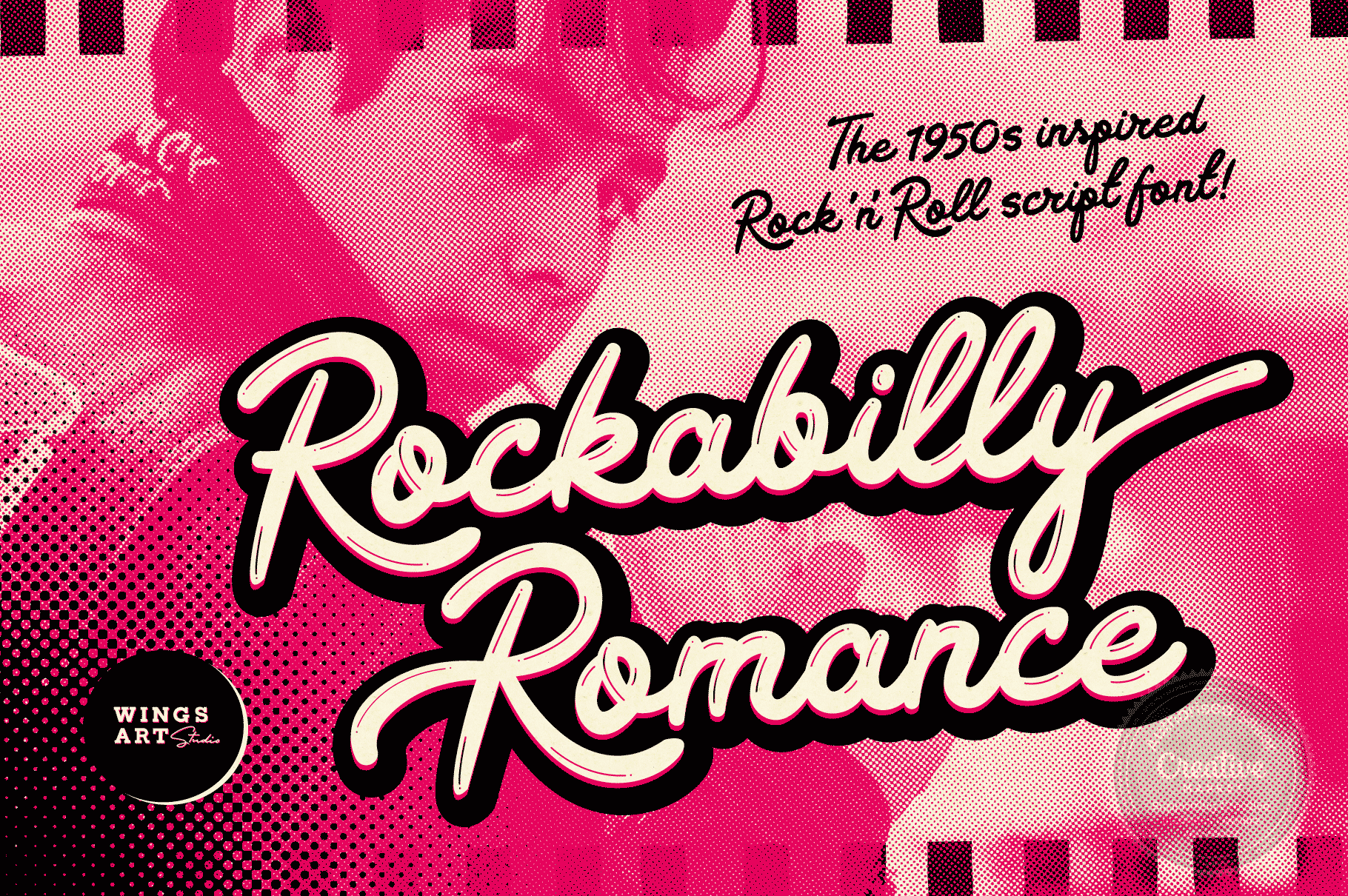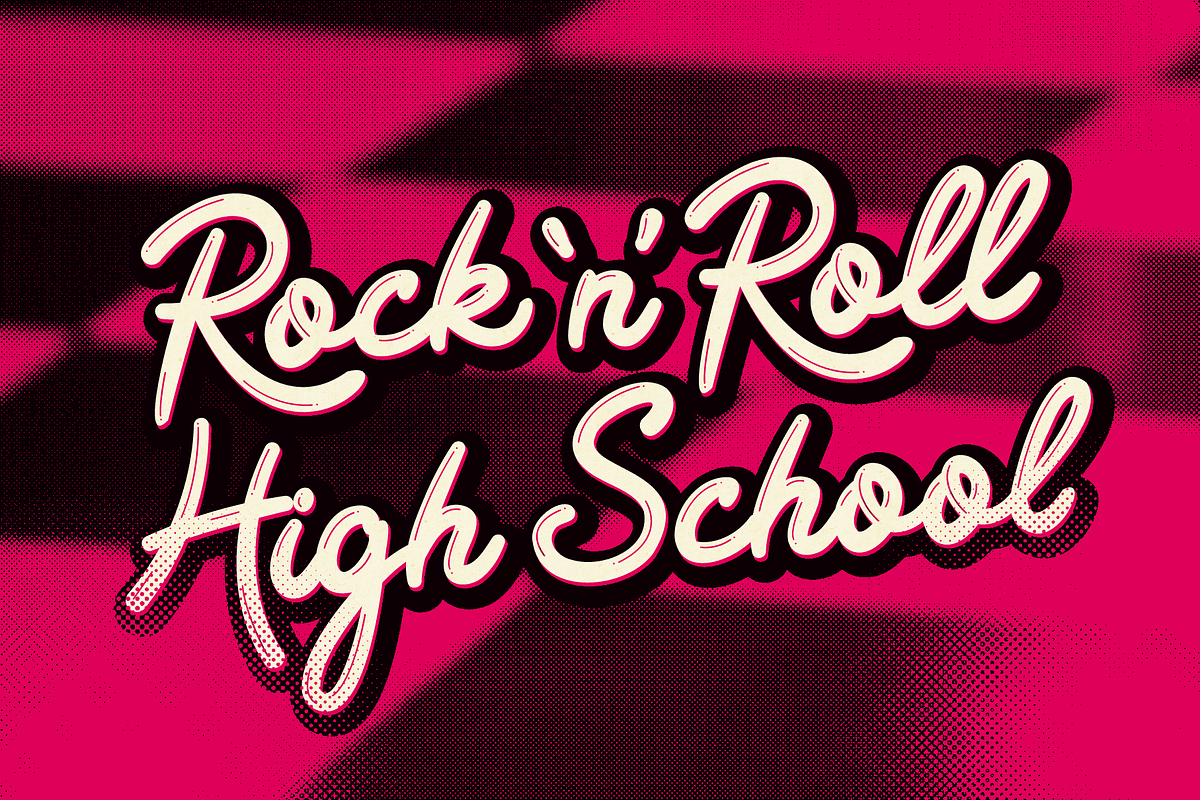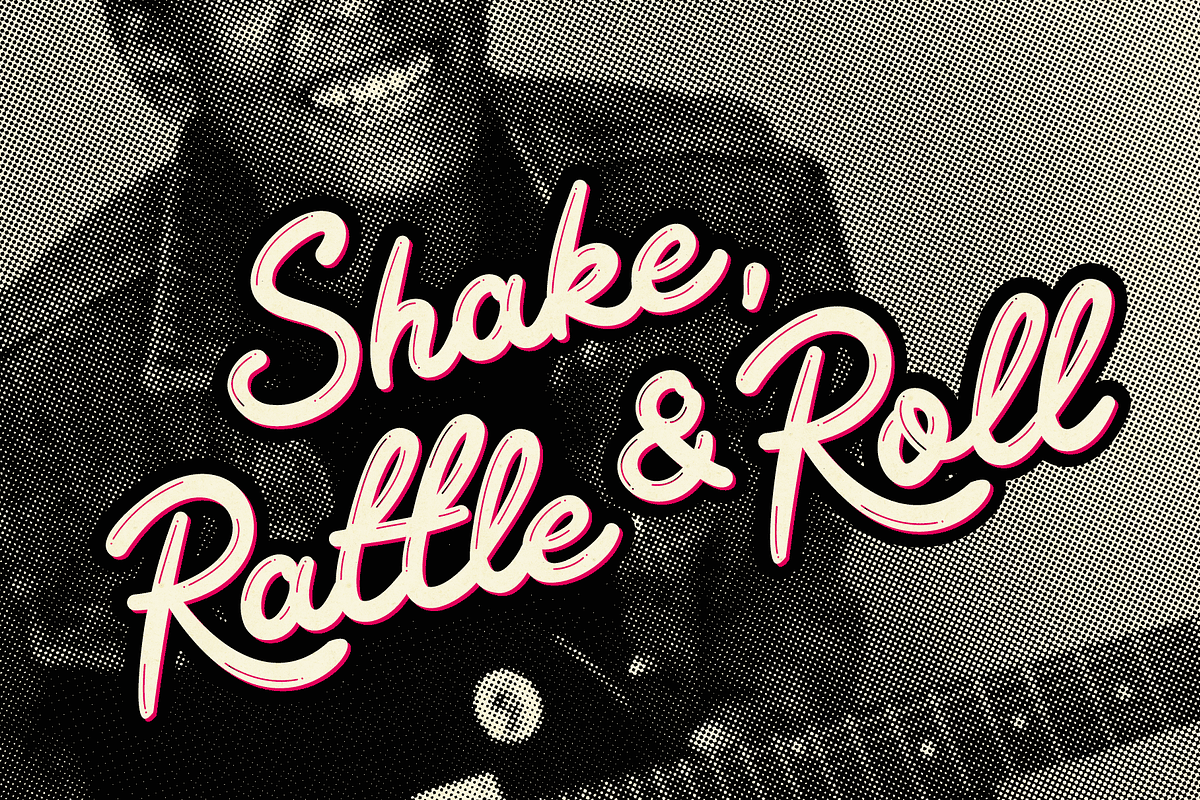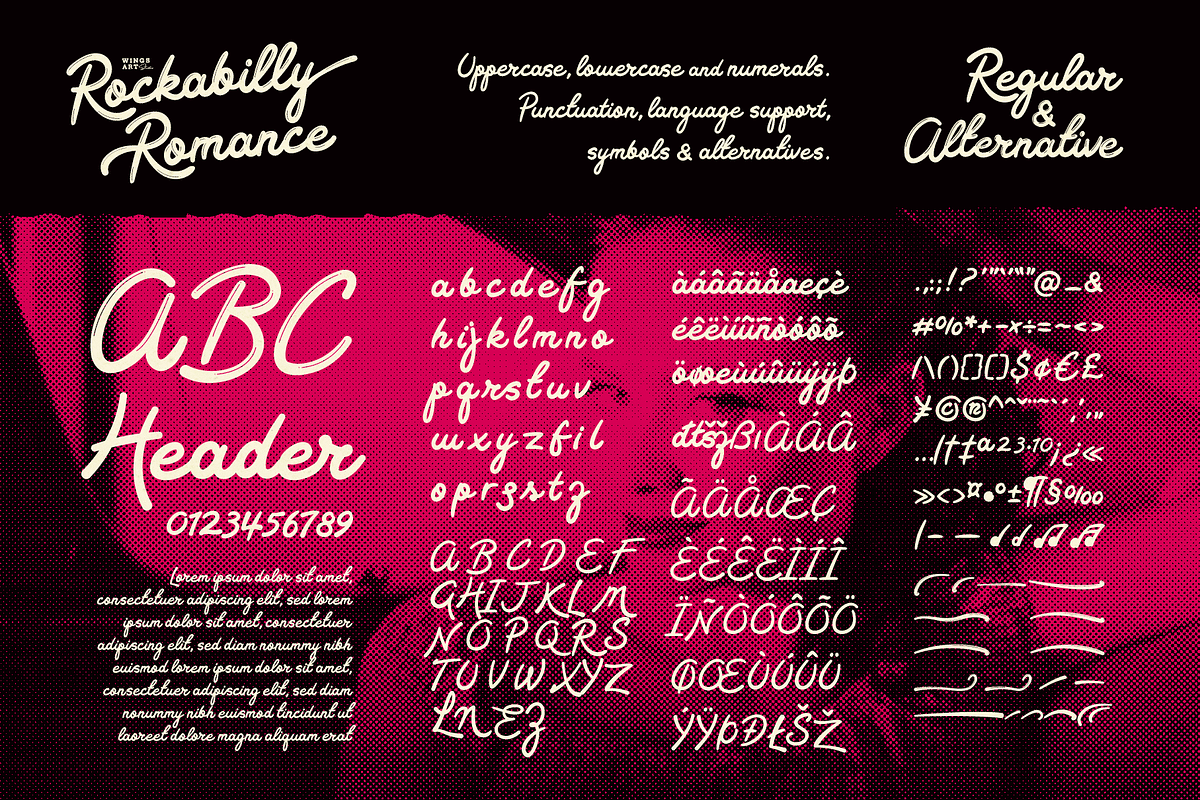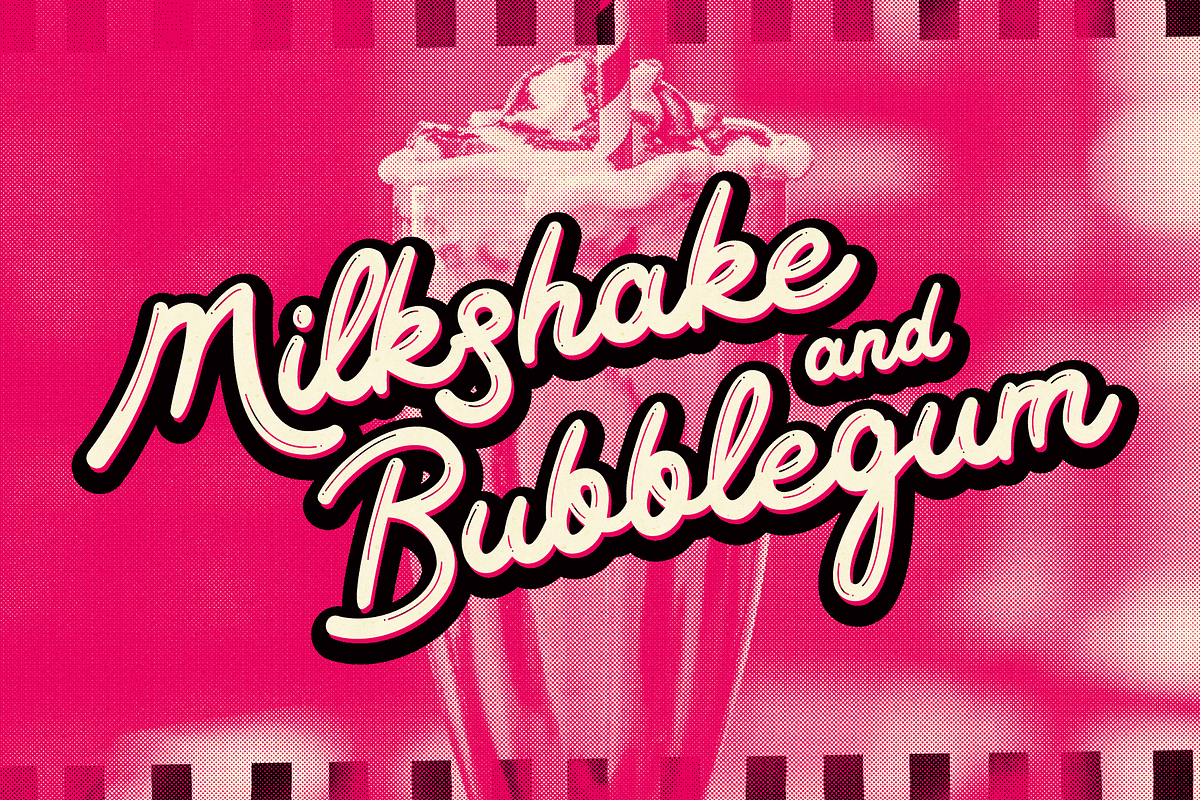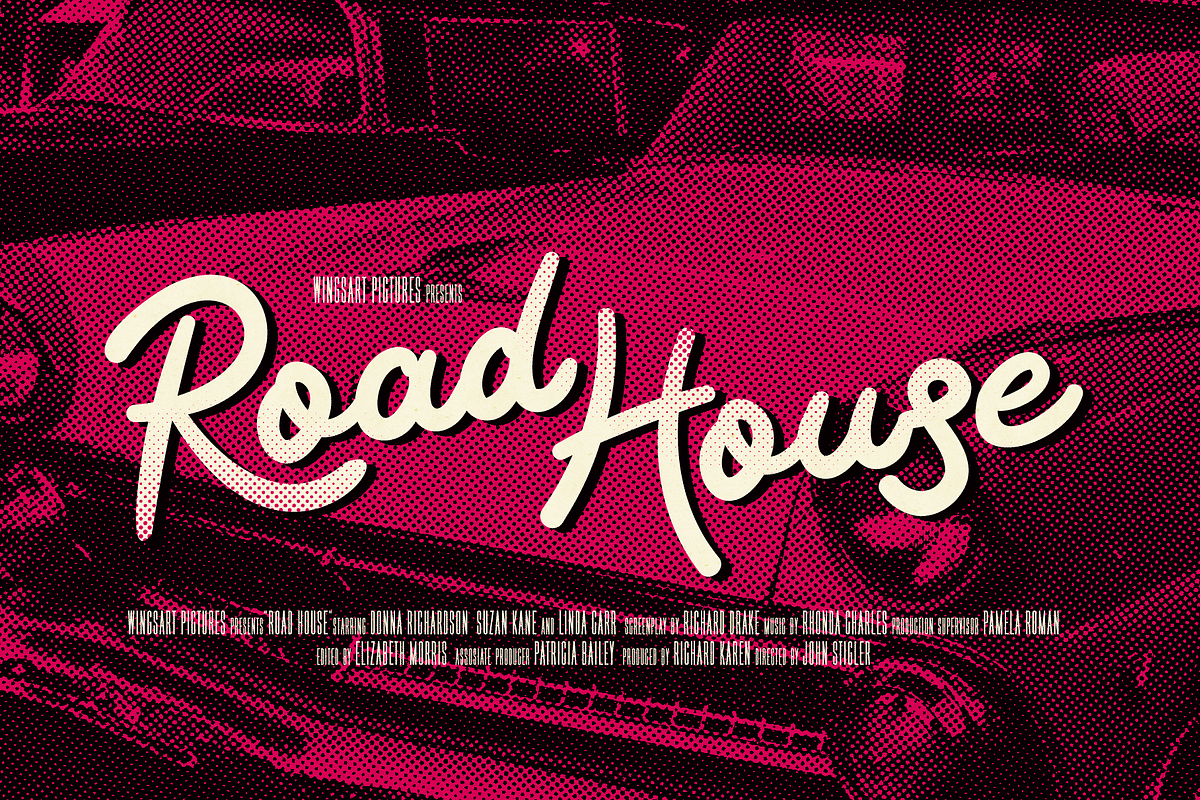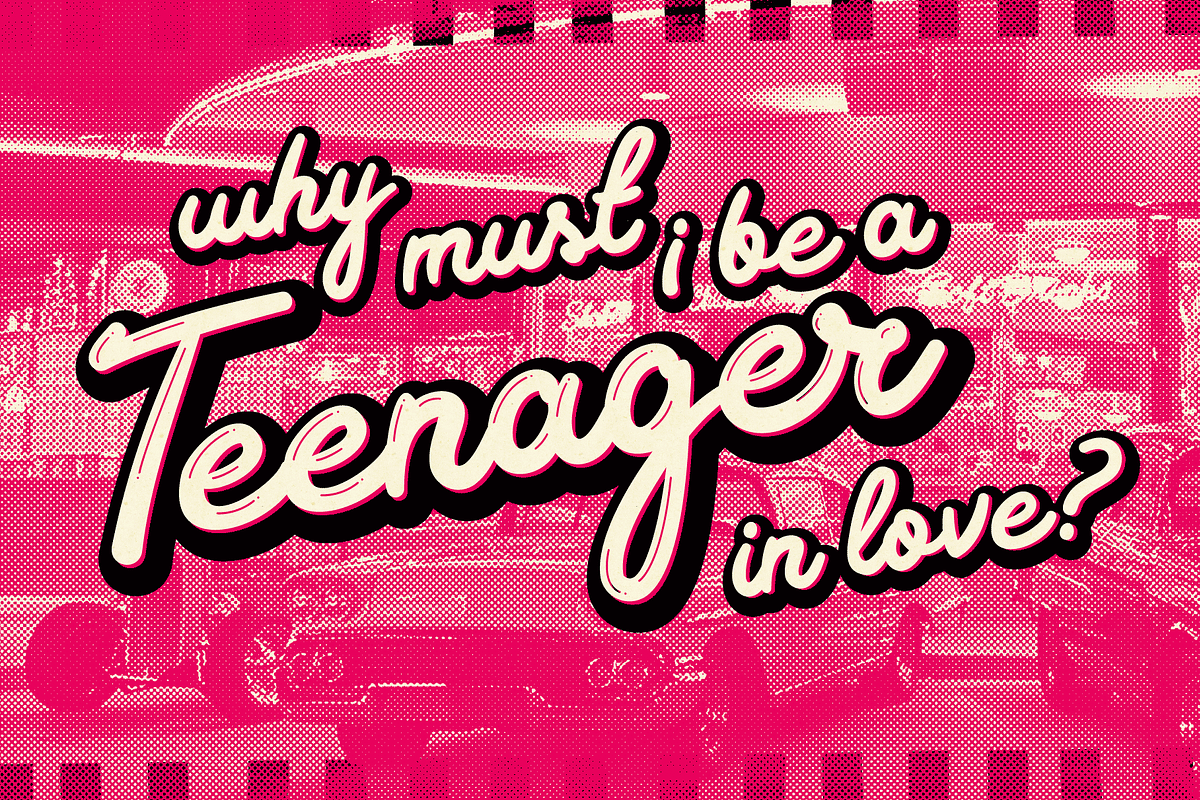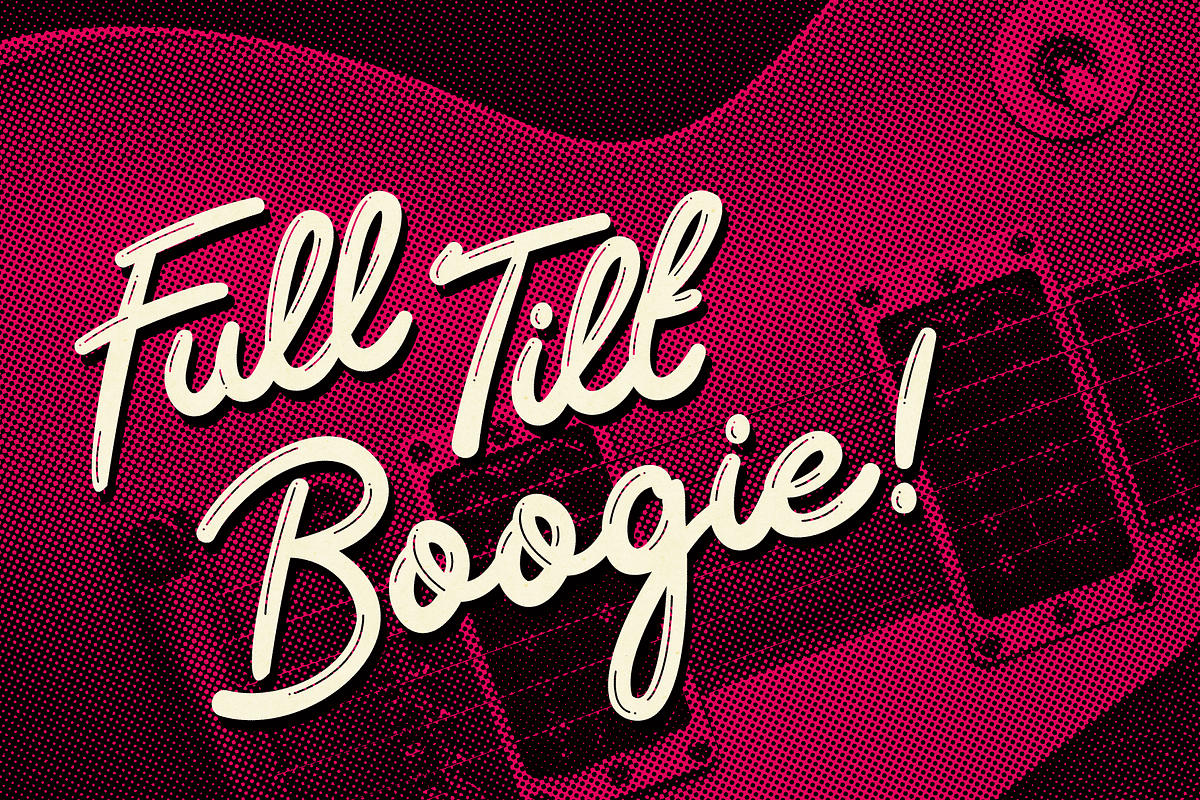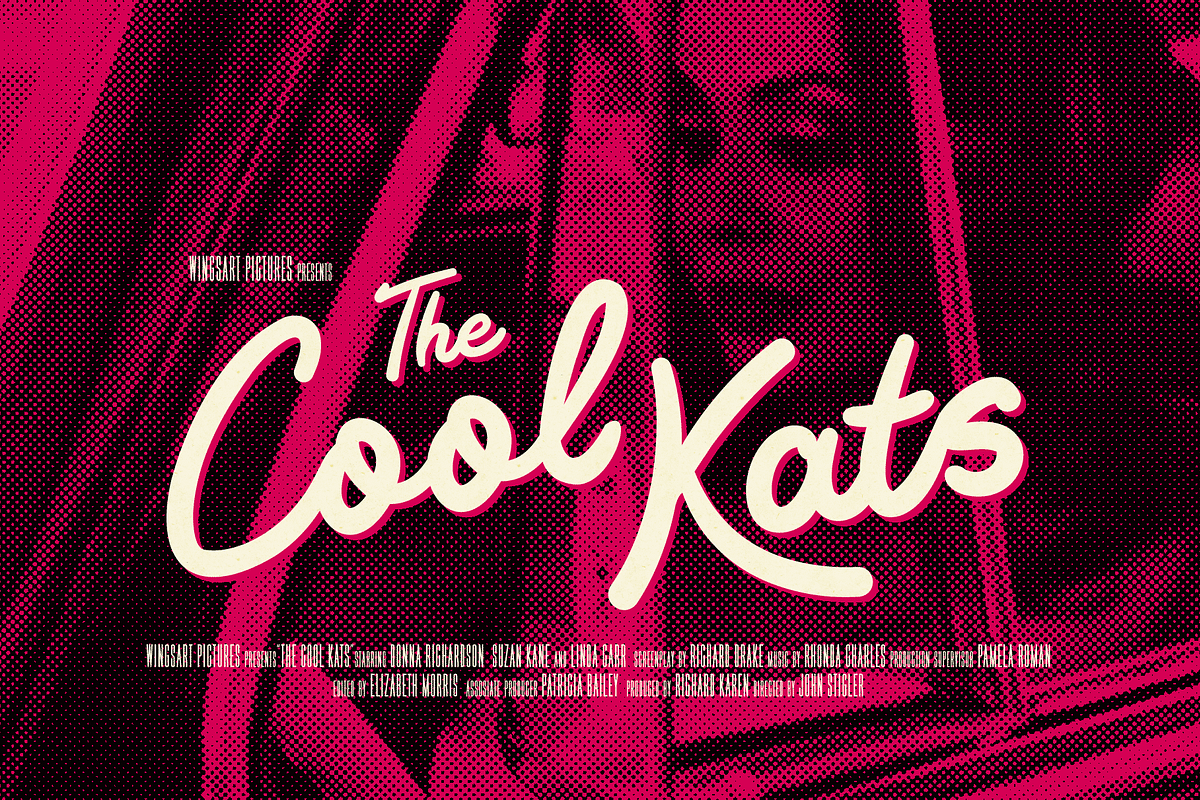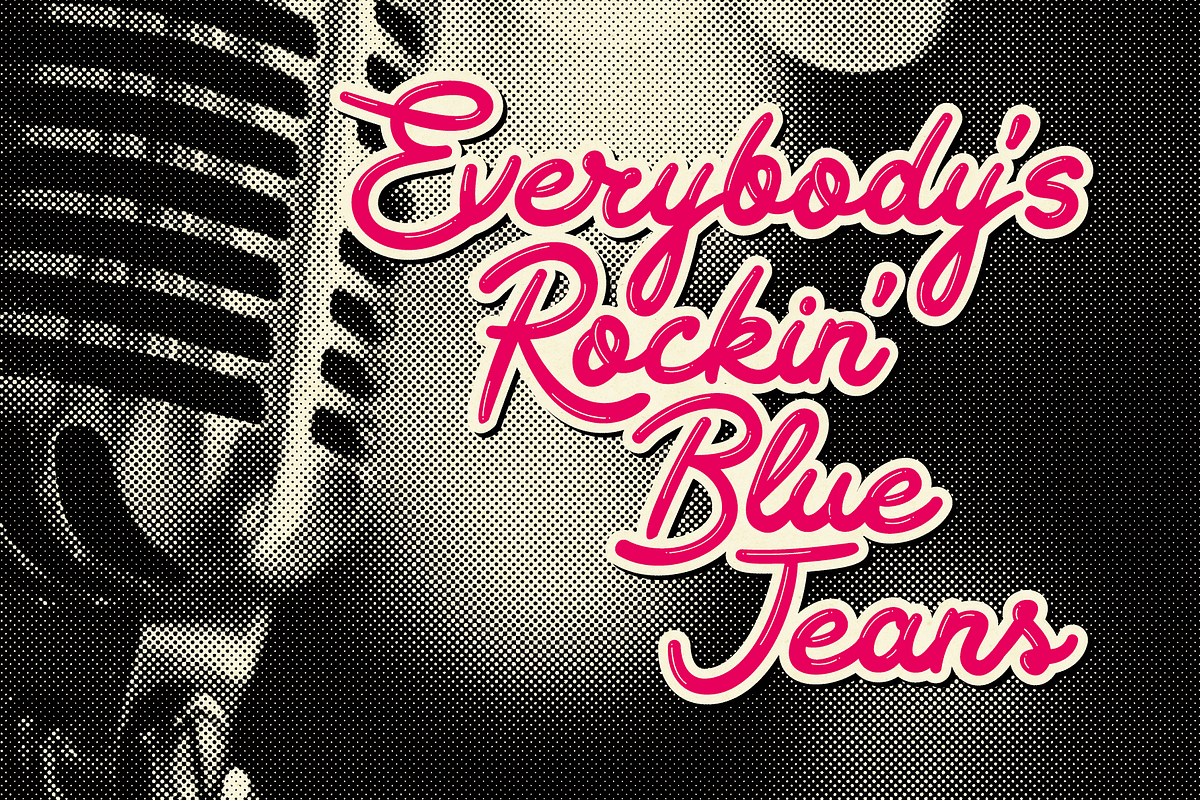
Rockabilly Romance - 50s Script Font
Rockabilly Romance - A 1950s Rock ’n’ Roll Inspired Retro Script Font
Rockabilly Romance is a rebellious script font from Wingsart Studio inspired by 1950s Americana. It’s designed to evoke the feel of bustling retro diners, drive-in movies and a Rock ’n’ Roll attitude. It features fast curves with a hand-made free-flowing style, plus an alternative version with added lipstick gloss.
Standard features include unique uppercase and lowercase characters, punctuation, language support and numerals. It also includes underlines and lots of special ligatures and alternative characters to experiment with.
The Rockabilly Romance font is particularly suited to bold displays such as menu headers, posters, movie titles and album covers. Check out the visuals for more usage ideas.